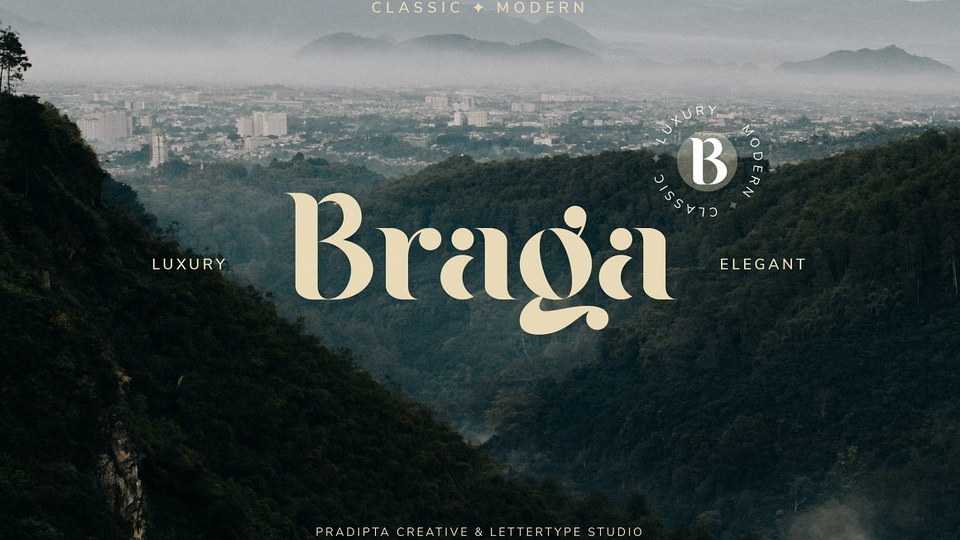
Download Braga font, a serif typeface with modern yet classic and vintage style. Braga font will be perfect for logo design, branding, clothing, signage, posters, wedding invitations and so much more.
Designer: Pradipta Creative